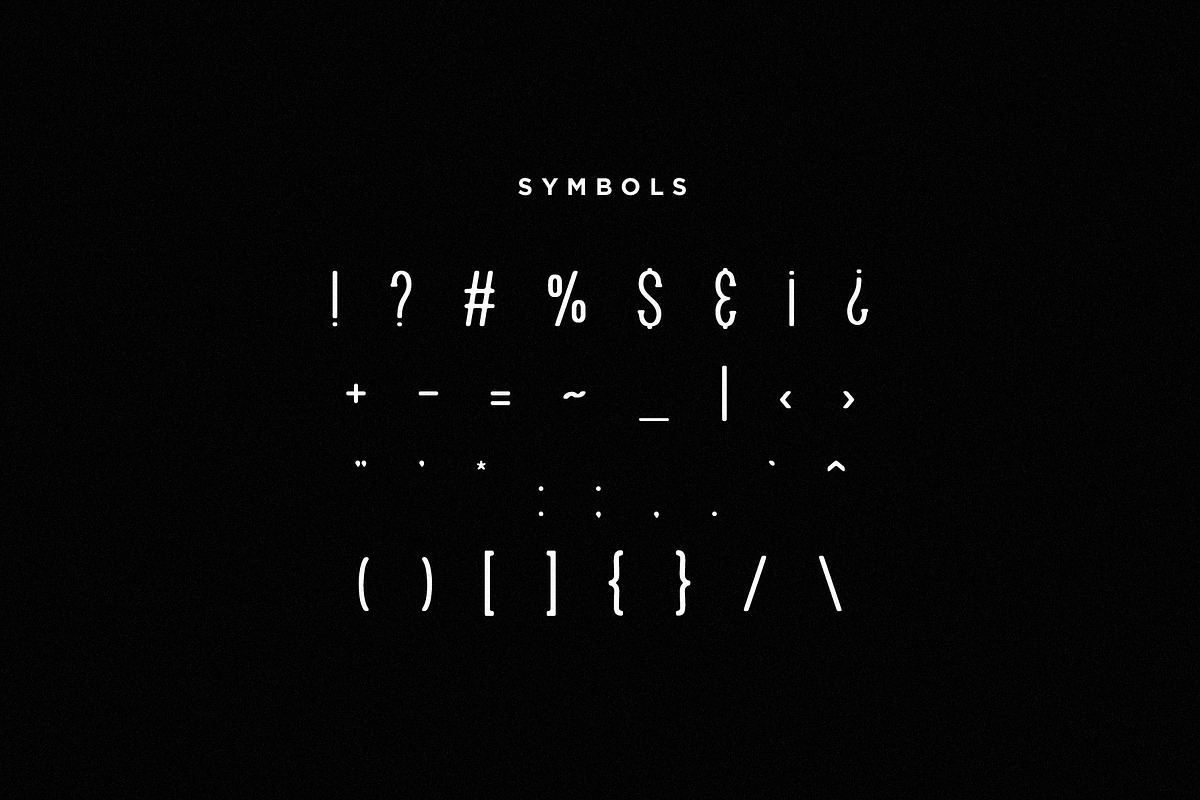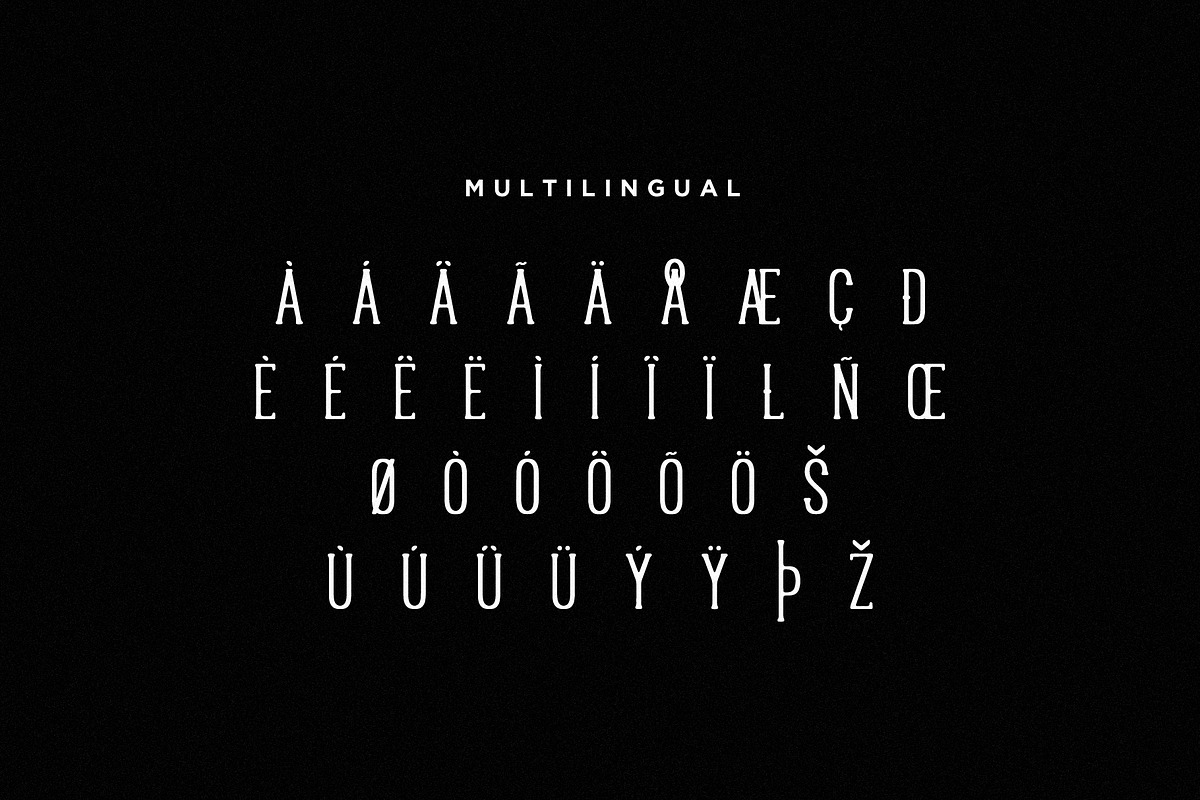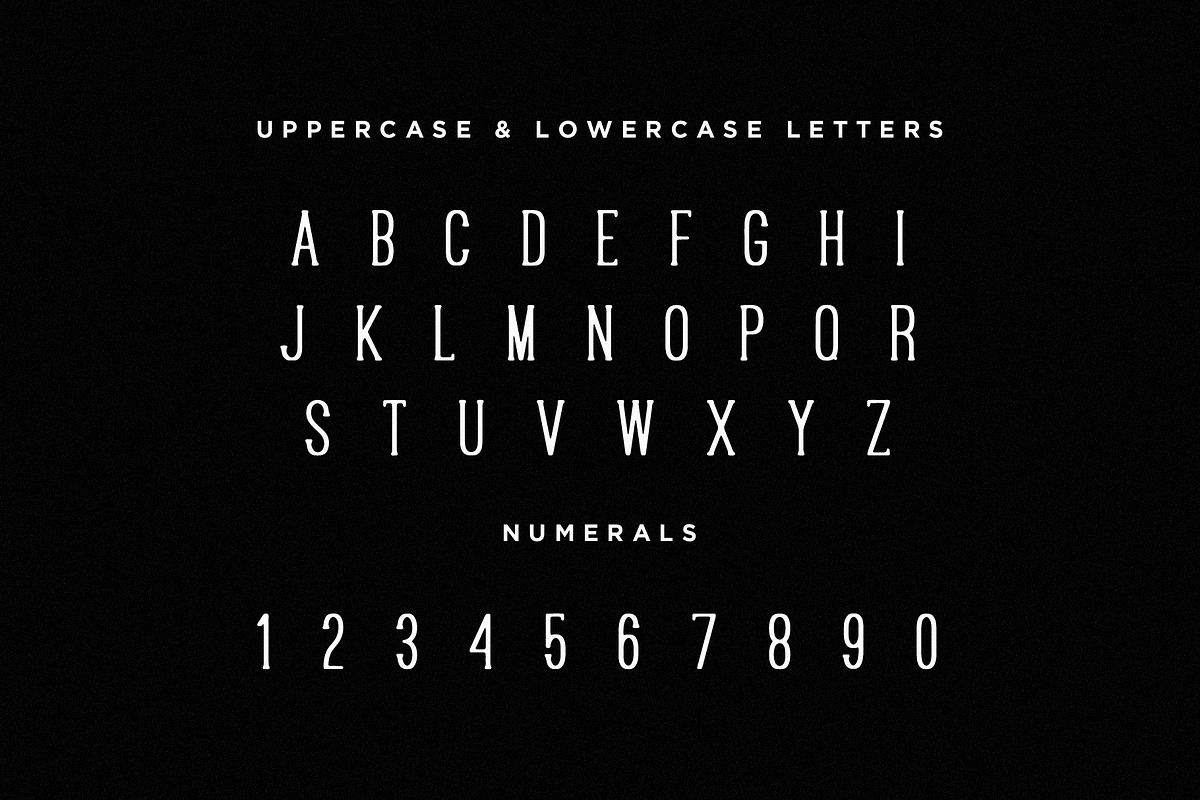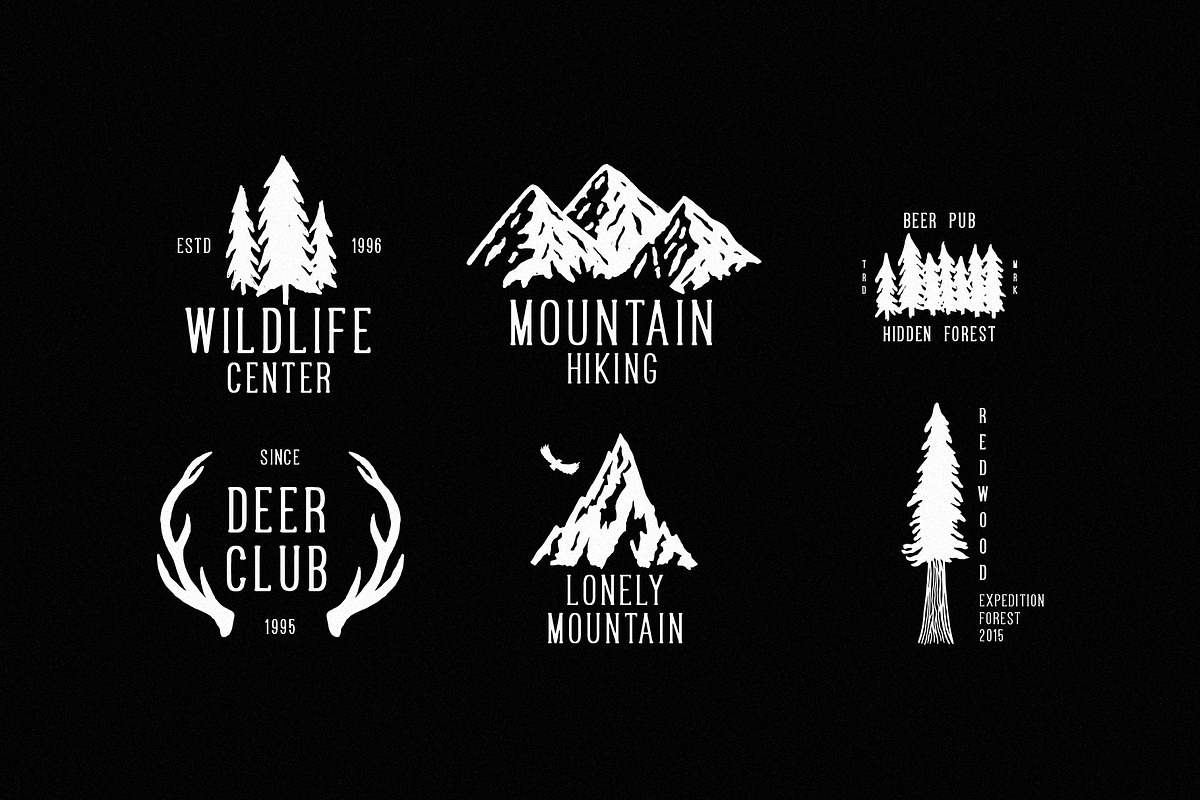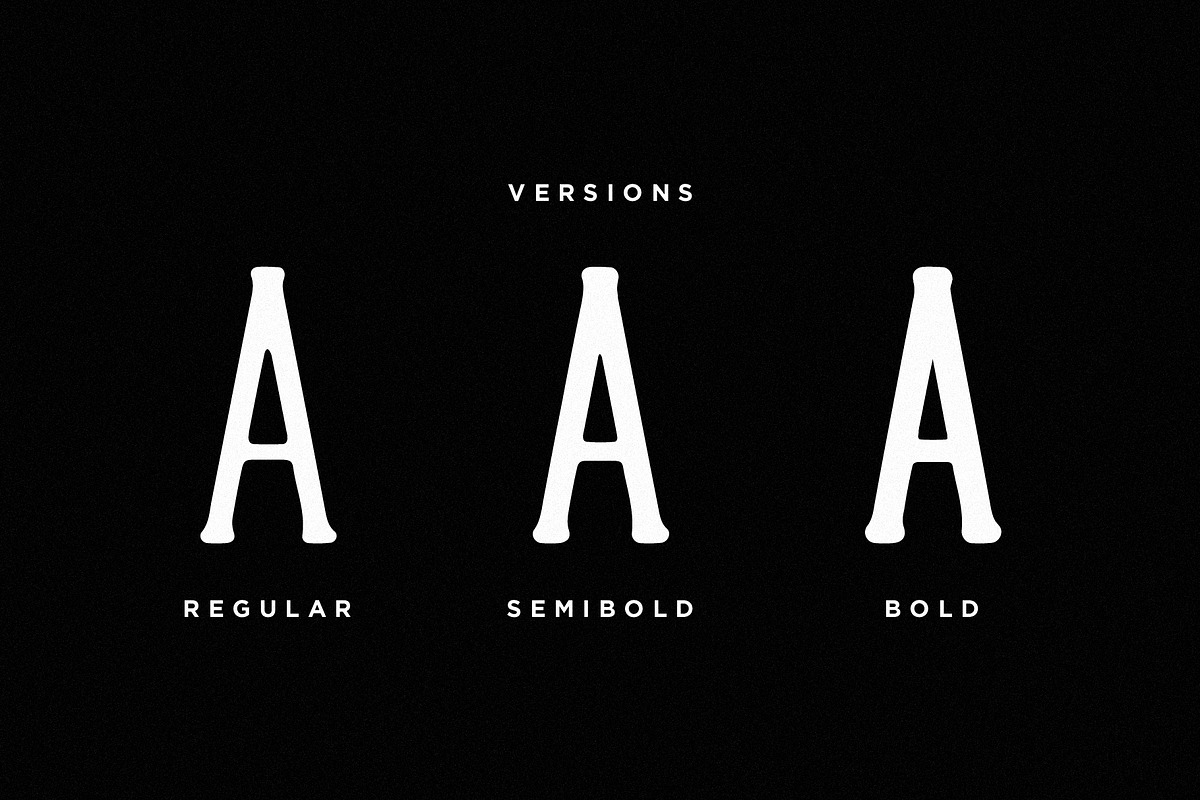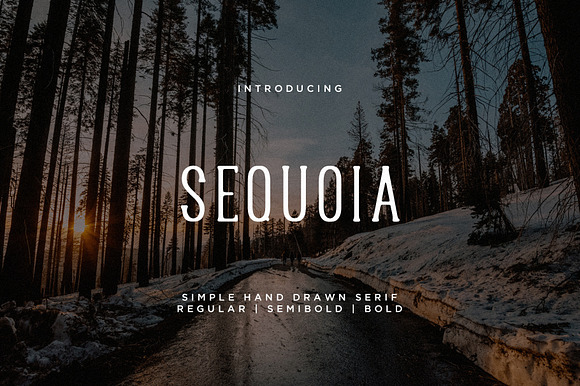
Sequoia Font + Extras
Sequoia is simple hand drawn serif font. Sequoia has smooth edges, a clean look, can be easily used for branding, logo design, posters, t-shirts, etc.
3 Versions: Regular, Semibold, Bold
- 3 Versions: Regular, Semibold, Bold
- Letters